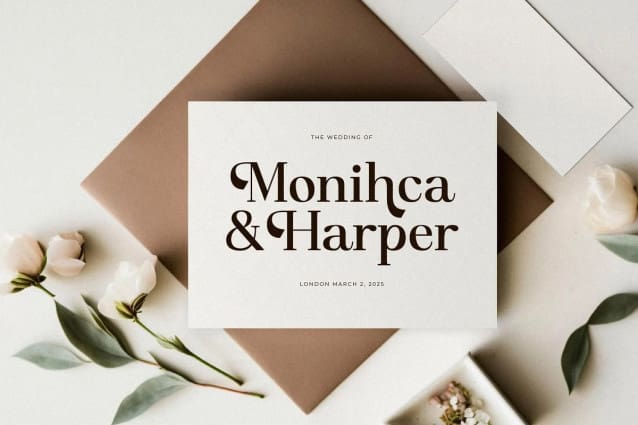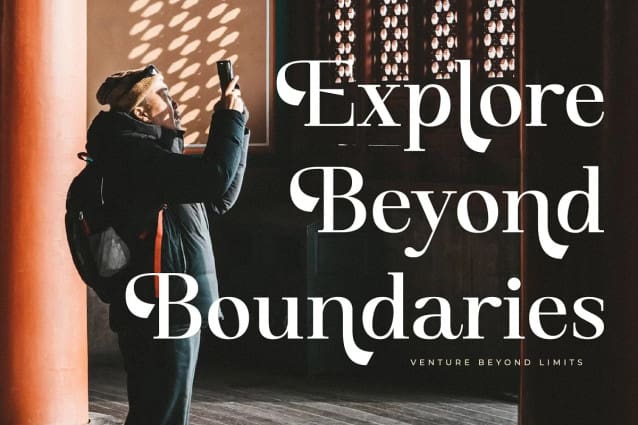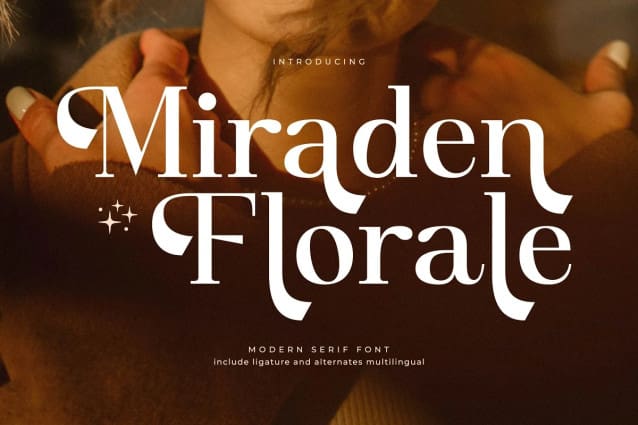
Miraden Florale Font
Miraden Florale Font, created by Storytype, A serif modern and classic typeface that has own unique style & modern look. This typeface is perfect for an elegant & luxury logo, book or movie title design, fashion brand, magazine, clothes, lettering, quotes, and so much more.